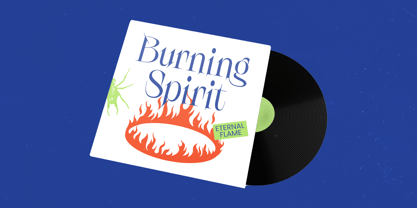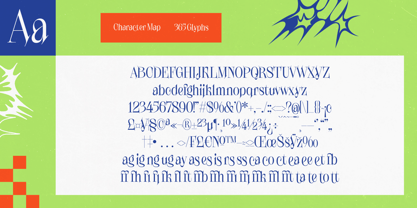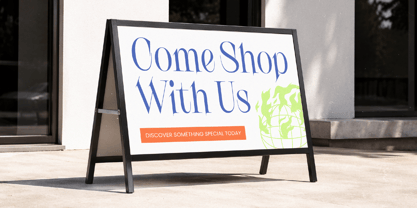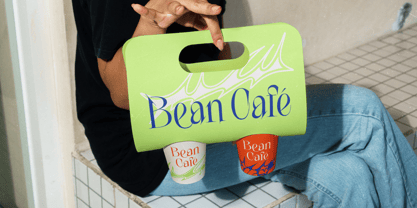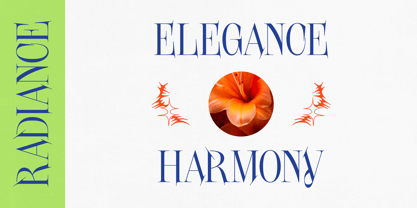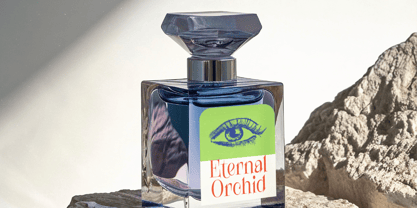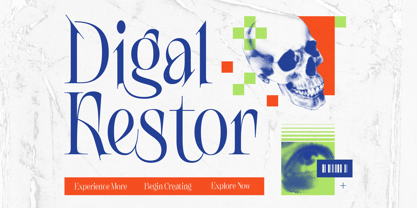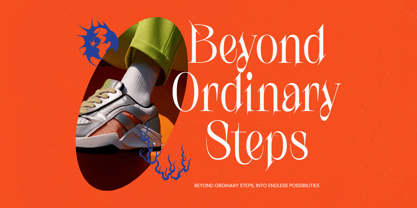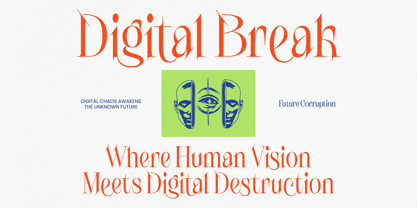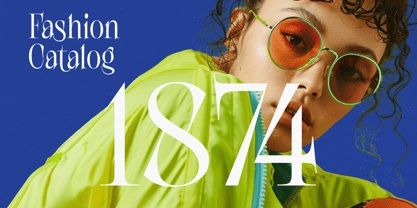
Digal Kestor
La familia tipográfica Digal Kestor fue diseñada por Heru Utama Putra y publicada por Timelesstype Studio. Digal Kestor contiene 2 estilos y opciones de paquete familiar. Más información sobre esta familia
Digal Kestor is an evocative dance of shadow and light, a display serif that commands attention with its razor-sharp elegance and soulful curves. It transforms every word into a visual symphony, bridging the gap between historical weight and futuristic minimalism.
Drawing inspiration from the intersection of classical Roman proportions and the rebellious spirit of modern art, this typeface captures a hauntingly beautiful aesthetic. It feels like a rediscovery of ancient inscriptions reimagined for a digital world where high-fashion meets underground culture.
This font exudes a sophisticated aura that makes it a perfect modern serif display for projects requiring a distinct luxury typography edge. With its high-contrast serif design, it delivers a powerful branding impact while maintaining the refined grace of a premium editorial font.